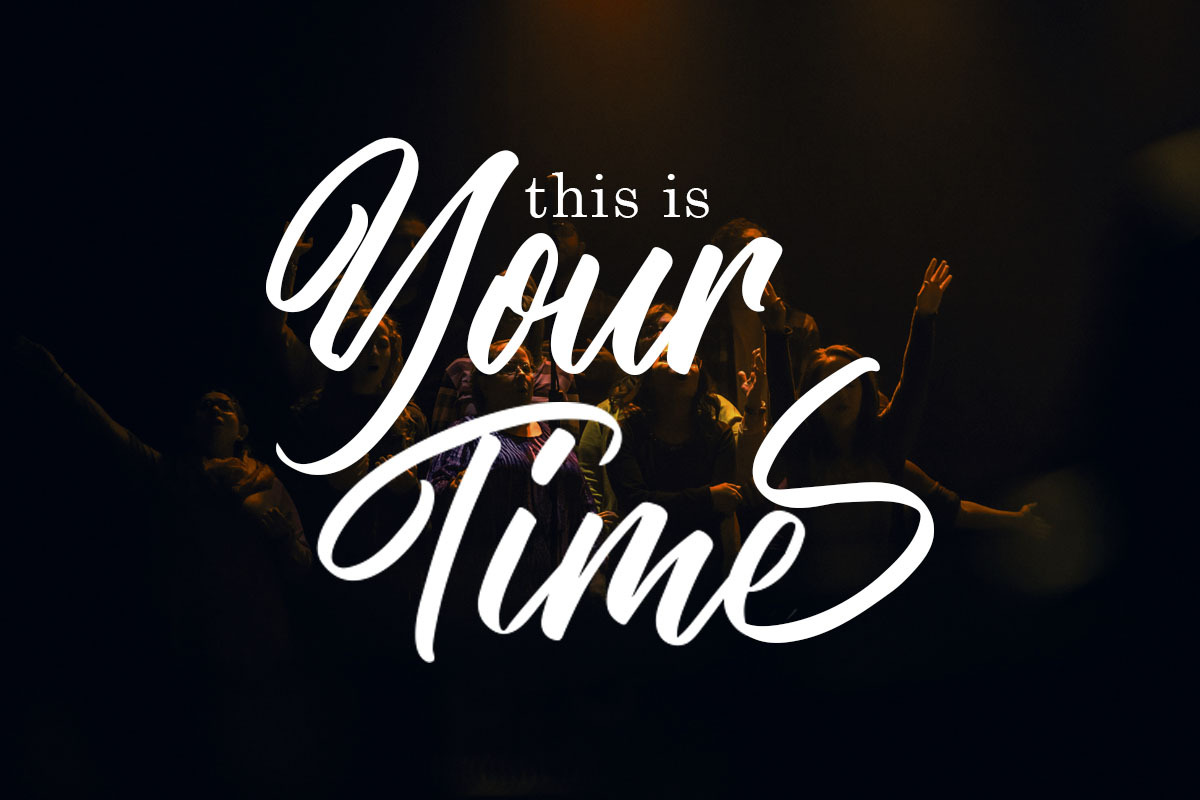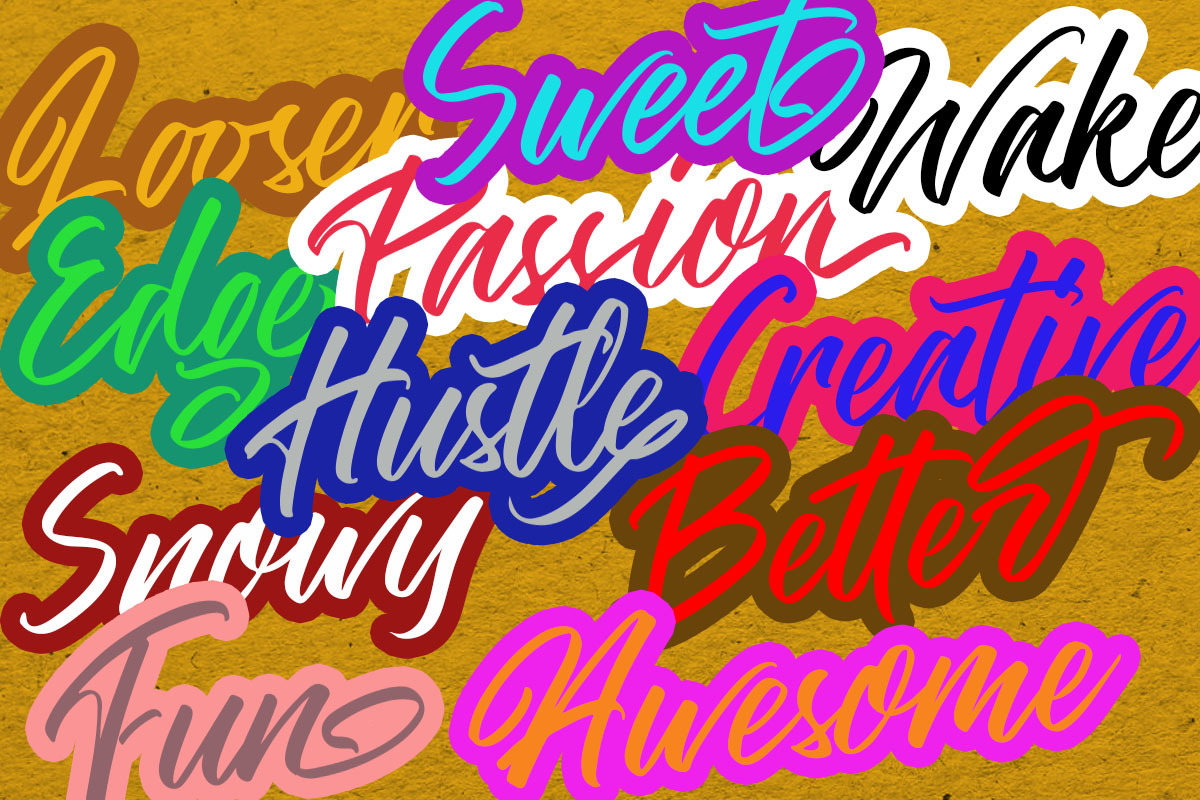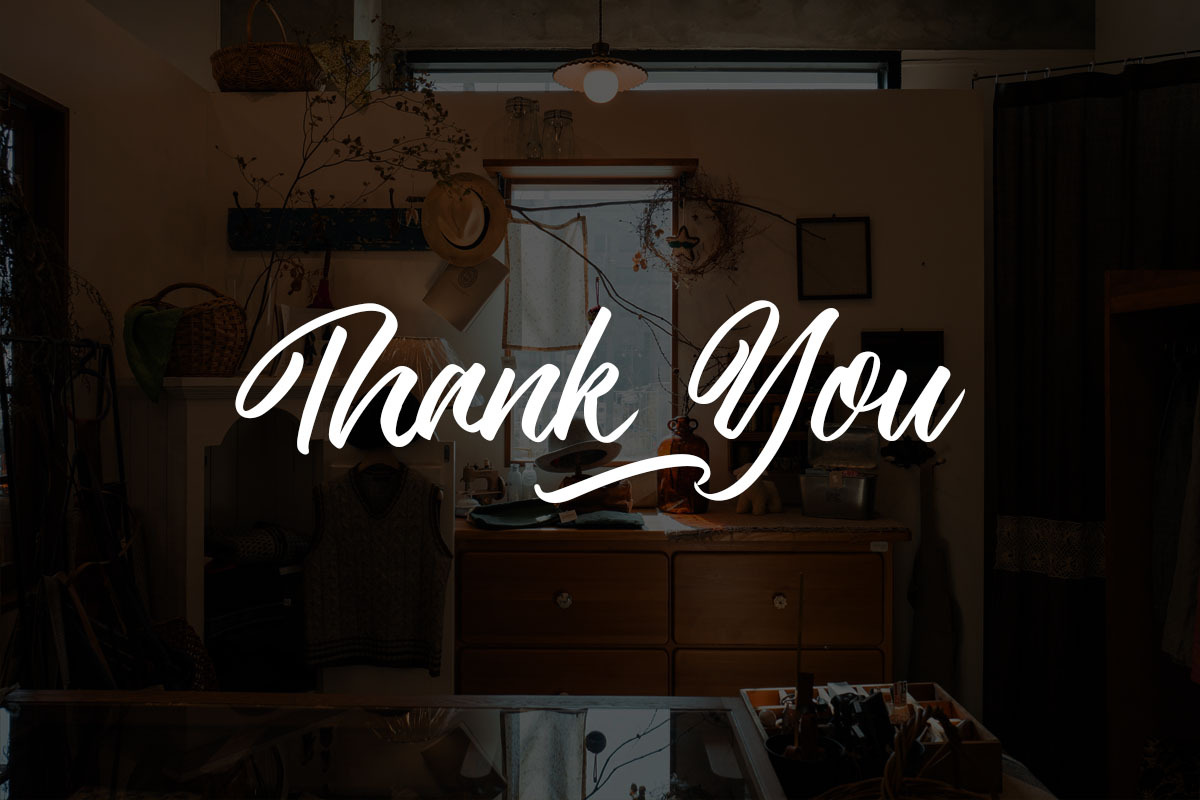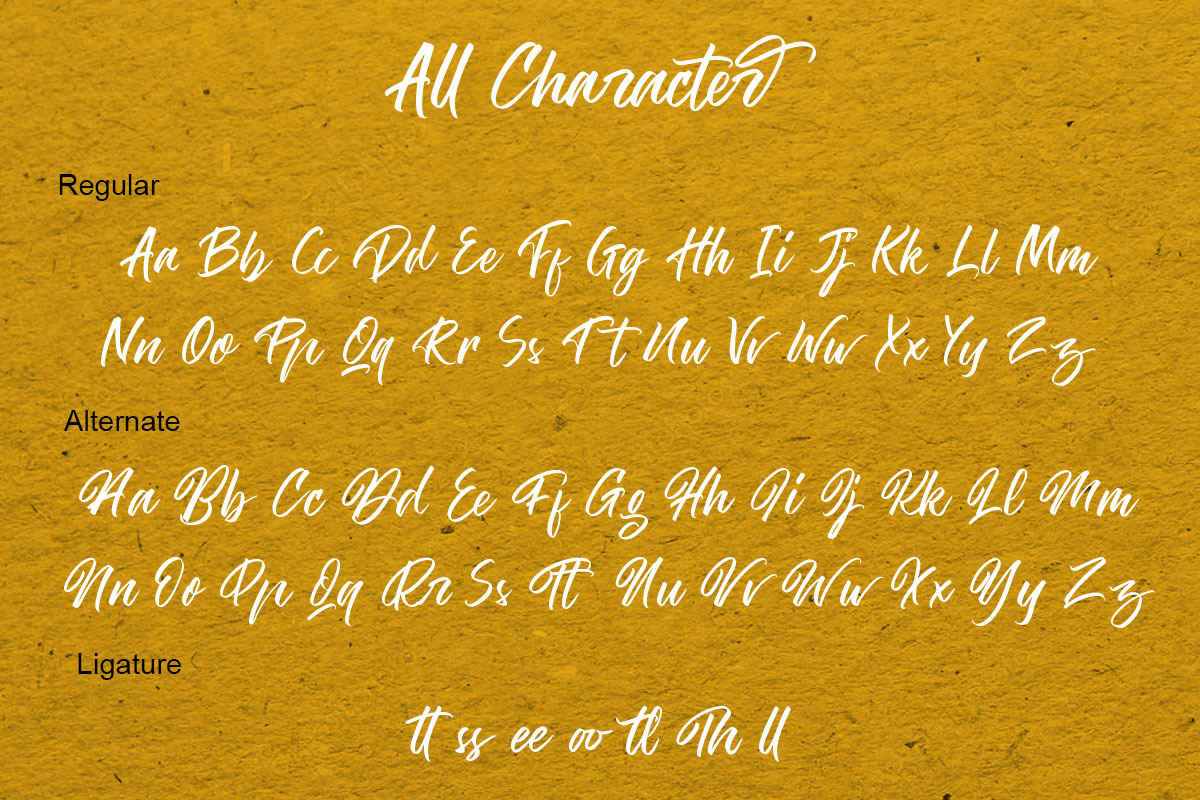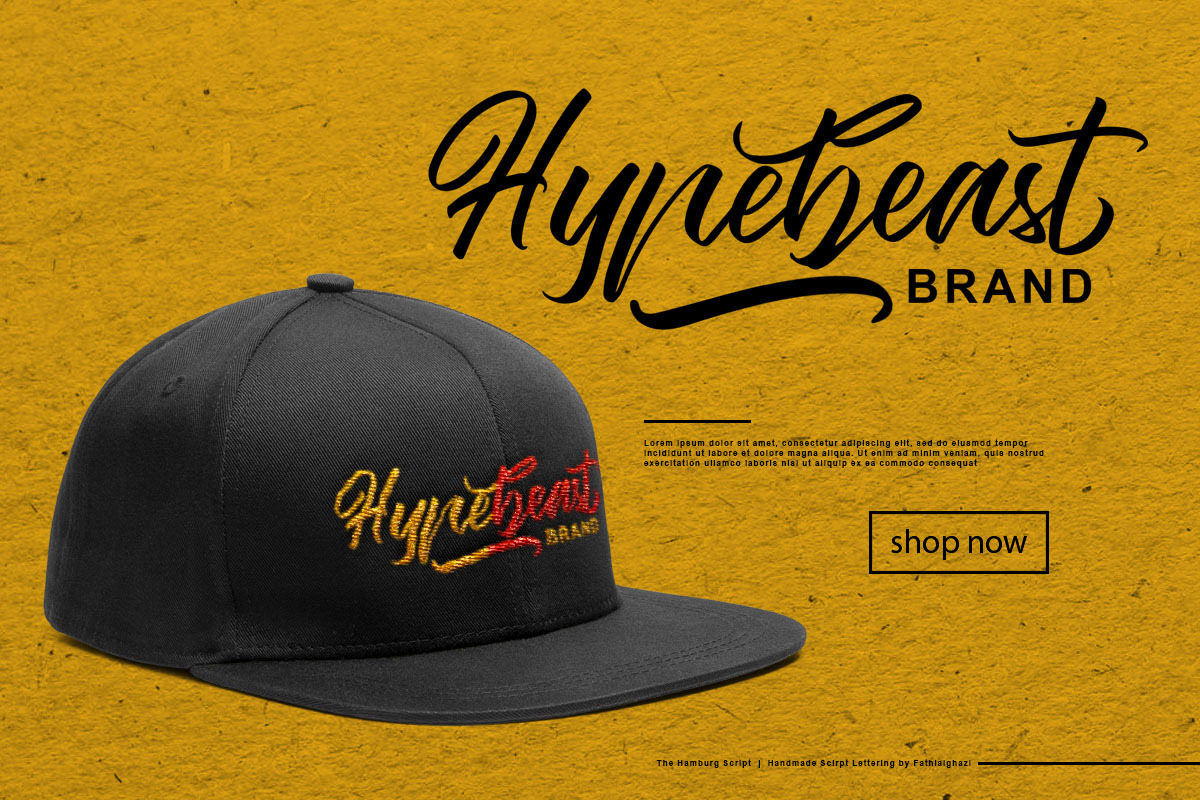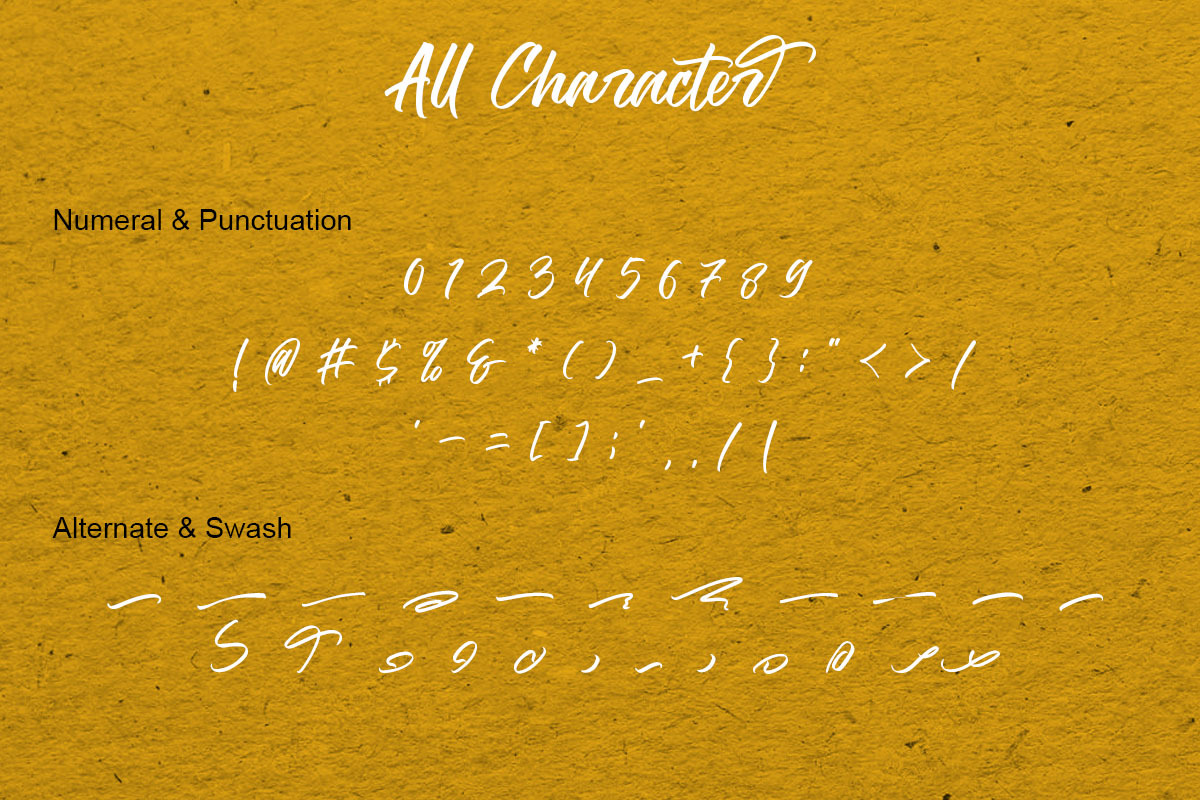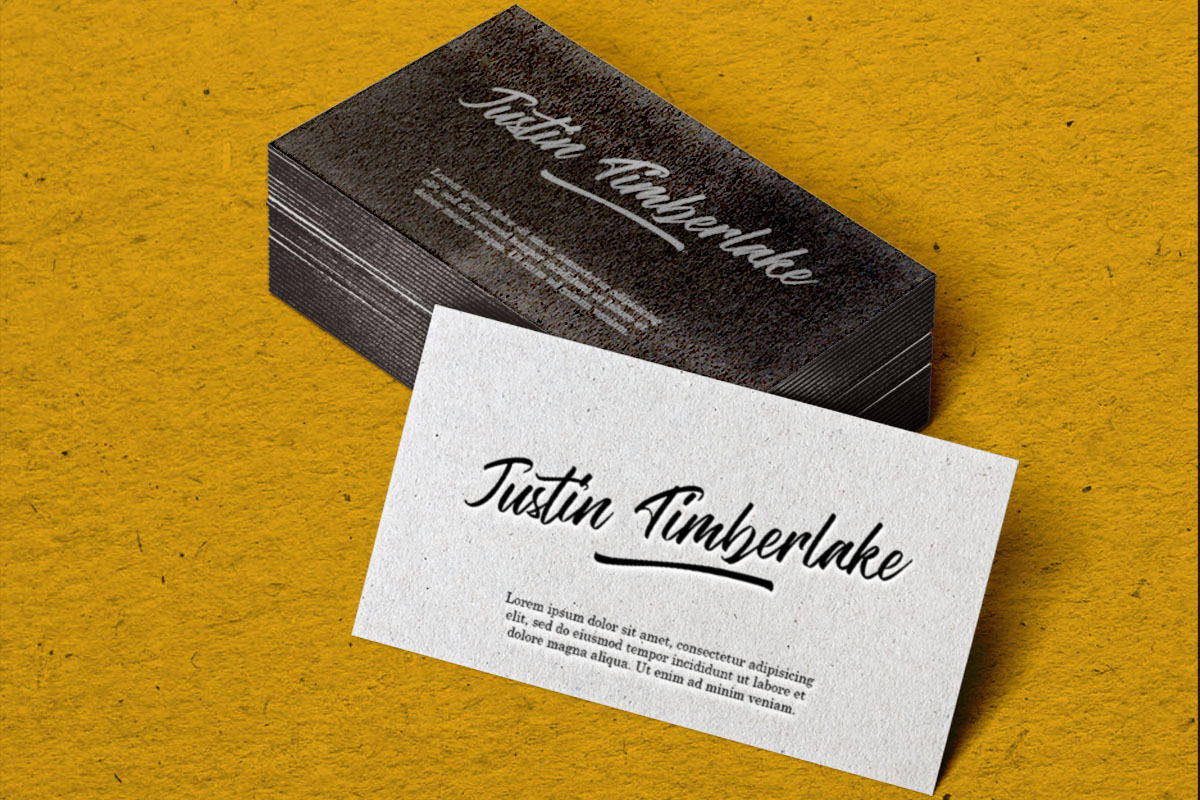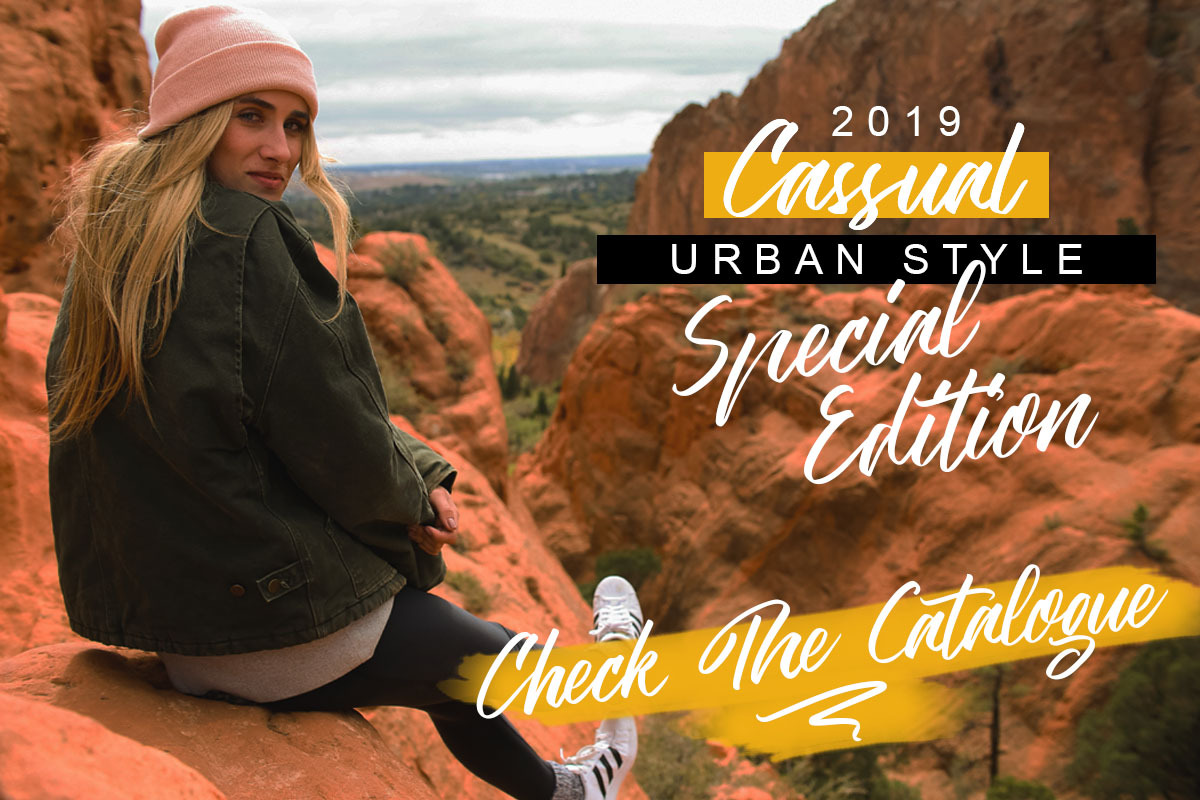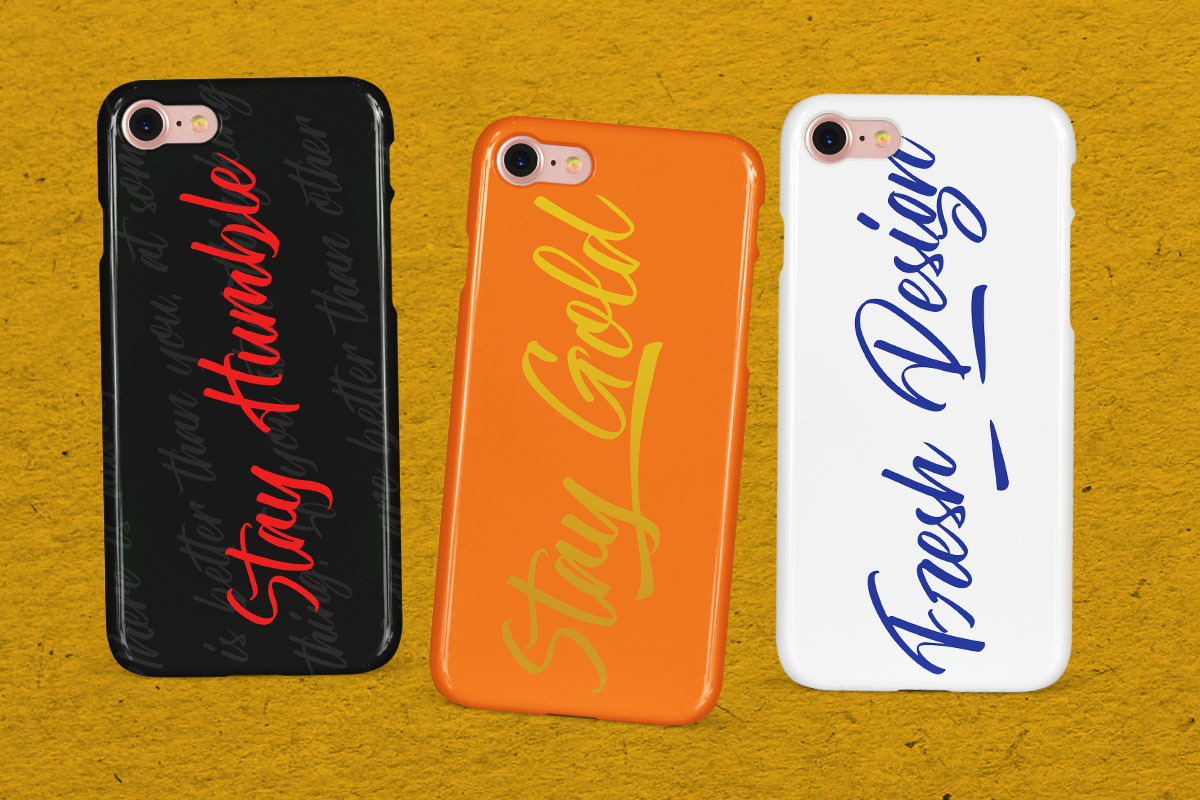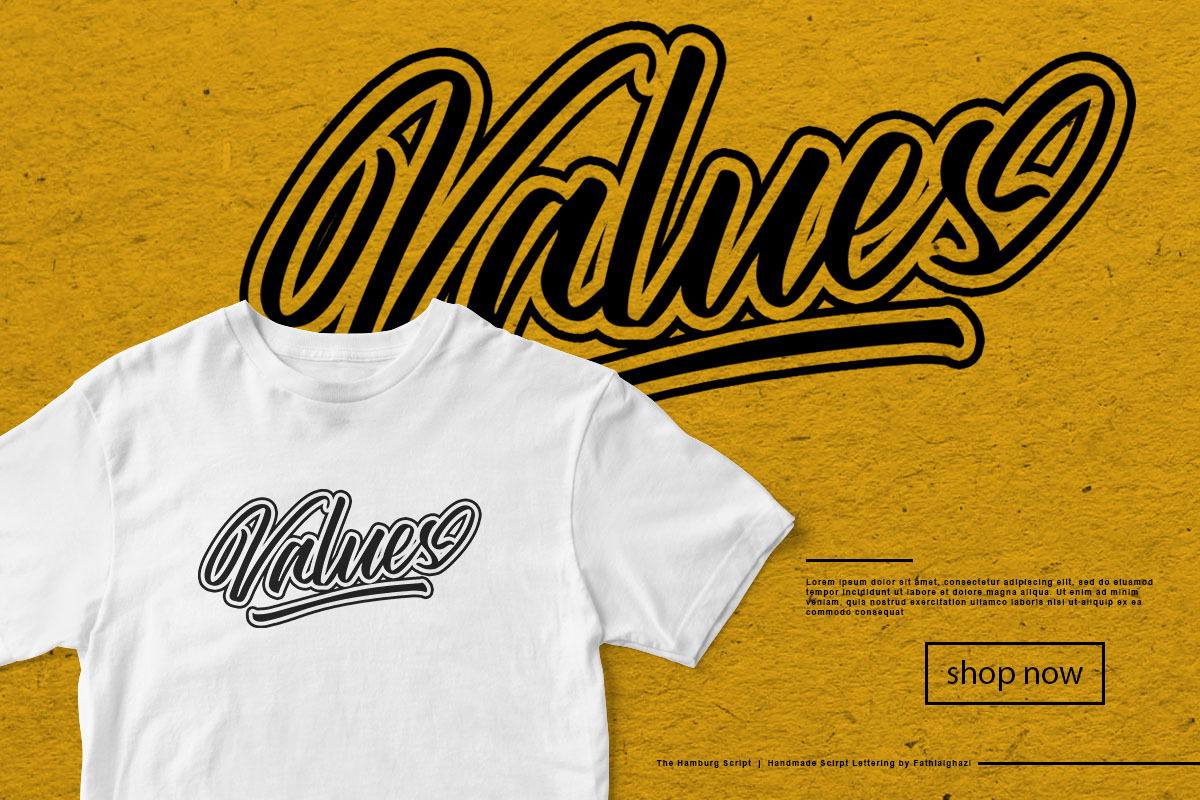
The Hamburg Script Font
Introducing, The Hamburg Script inspired by traditional Script Calligraphy with brushpen, this font is totaly handmade with brush pen scratch. it would be great for any type of design. i will hope this make you inspired with my font.
The Hamburg Script would perfect for photography, watermark, social media posts, advertisements, logos & branding, invitation, product designs, label, stationery, wedding designs, product packaging, special events or anything that need handwriting taste
What's the Feature ?
- Opentype Feature
- Alternate Glyphs
- Alternate Shape (make you free to form)